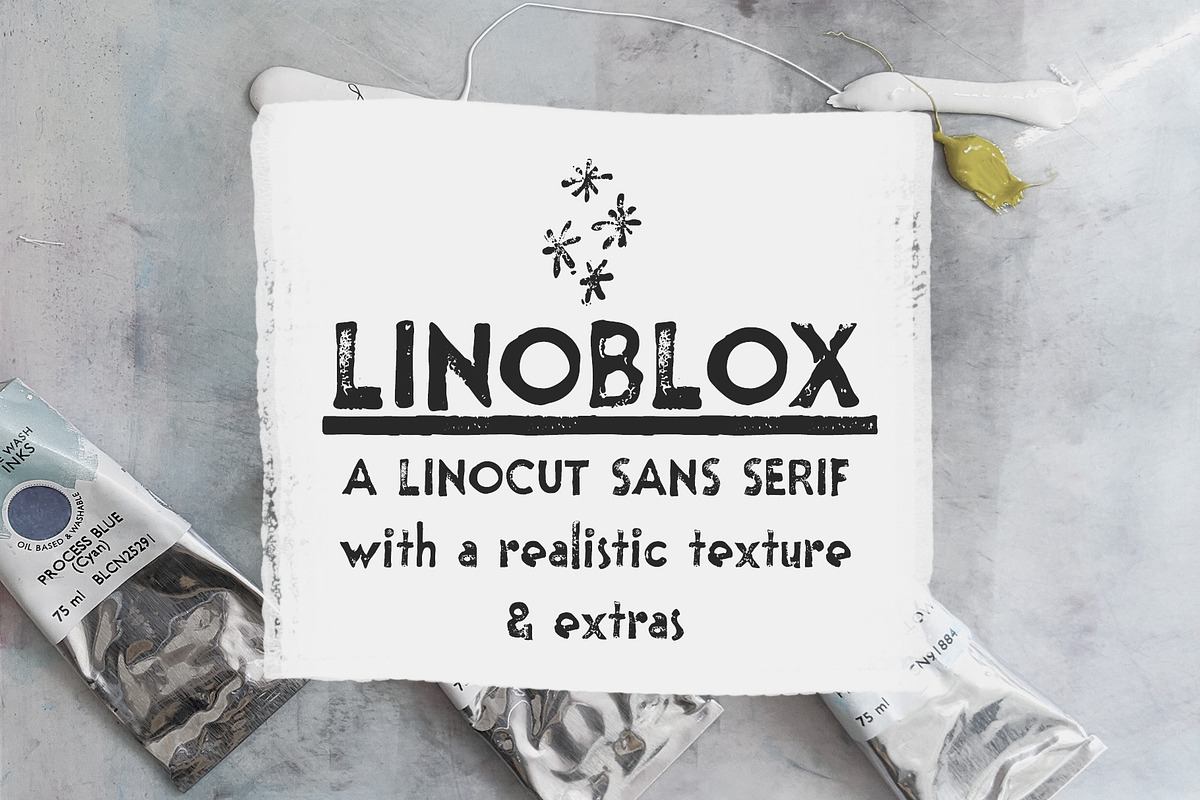
Raw, artistic, and full of handcrafted texture, Linoblox Linocut Sans Font Free Download is a unique sans-serif typeface inspired by traditional linocut printmaking. Perfect for posters, book covers, craft packaging, editorial layouts, and vintage-inspired branding, this font delivers an organic, tactile feel that sets your work apart.
Its bold strokes, subtle imperfections, and carved appearance give it an authentic handmade look, ideal for projects that call for creativity, authenticity, and a touch of nostalgia. Linoblox combines clean sans structure with artistic grit—making it both versatile and visually rich.